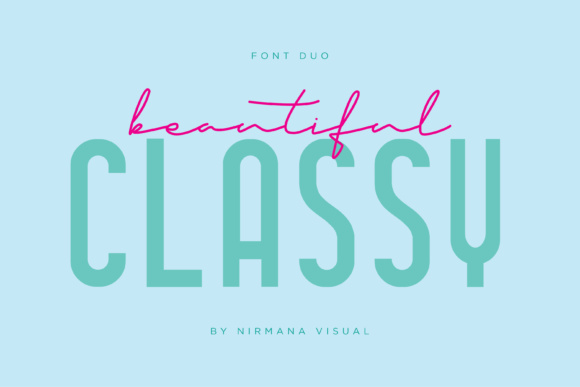
Unleash your creativity with the Classy Beautiful Duo Font, a breathtaking font family that seamlessly blends elegance and modernity. This exquisite duo invites you to elevate your design projects with its captivating script and sans serif typefaces, meticulously crafted to complement each other flawlessly.
Indulge your artistic vision with the script font, boasting graceful curves and sweeping strokes that evoke a touch of timeless sophistication. Its enchanting ligatures and alternates add an extra layer of charm, transforming your words into a captivating visual masterpiece. Whether you're designing wedding invitations, branding projects, or social media graphics, the script font will lend a touch of irresistible allure.
Discover endless possibilities with the sans serif font, exuding a clean and contemporary aesthetic. Its sharp lines and geometric forms provide a striking contrast to the script font, creating a harmonious balance in your designs. With its versatility, the sans serif font effortlessly adapts to a wide range of applications, from website design and app interfaces to posters and flyers.
Together, the Classy Beautiful Duo Font empowers you to create designs that captivate and inspire. Dive into a world of creative expression, where your imagination takes center stage. Transform your projects into breathtaking works of art that leave a lasting impression.
Embrace the beauty of Classy Beautiful Duo Font and embark on a creative journey like no other. Let your designs bloom with elegance and modernity, leaving your audience in awe.